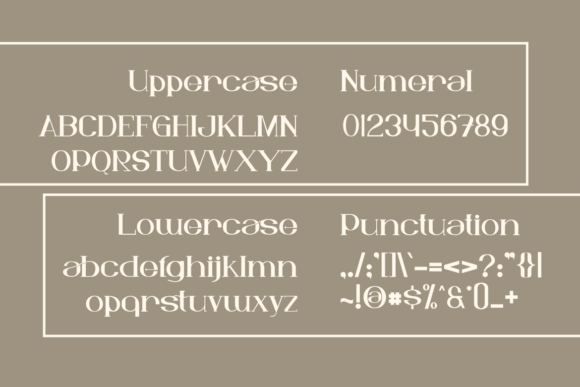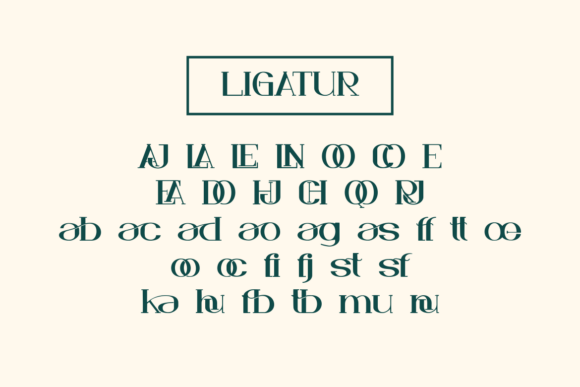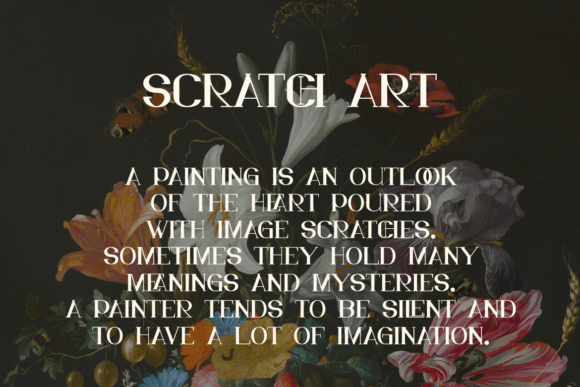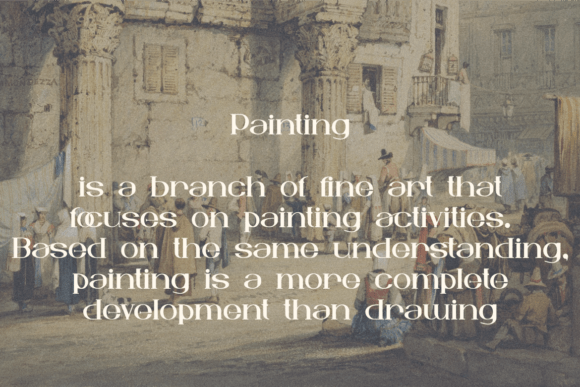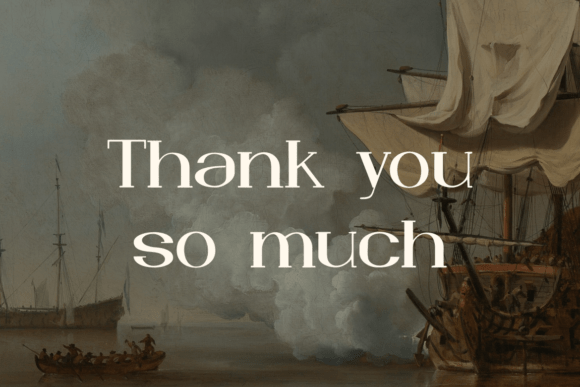
Gifbesty Font: Elevate Your Designs with Luxury and Sophistication
In the world of typography, fonts play a crucial role in conveying the tone and personality of a brand or design. For those seeking to create a bold yet refined aesthetic, Gifbesty Font is an excellent choice. This high-end luxury serif font boasts elegant letterforms and stylish curves that exude sophistication, making it ideal for fashion branding, editorial design, product packaging, and upscale invitations.
The Essence of Gifbesty Font
Gifbesty Font is designed to make a statement. Its sleek and modern serif lines evoke a sense of luxury, perfect for designers and crafters who want to elevate their projects. The font’s elegant curves and refined lines create a sense of balance and harmony, making it suitable for a wide range of applications, from high-end fashion brands to editorial designs and product packaging.
Key Features of Gifbesty Font
- Luxury Serif Design: Gifbesty Font features a high-end serif design that adds a touch of sophistication to any project.
- Elegant Letterforms: The font’s elegant letterforms are designed to create a sense of refinement and poise.
- Stylish Curves: The stylish curves of Gifbesty Font add a touch of modernity and flair to any design.
- Versatile: This font is perfect for a wide range of applications, including fashion branding, editorial design, product packaging, and upscale invitations.
Gifbesty Font is an excellent choice for designers and crafters who want to create a bold yet refined aesthetic. Whether you’re working on a fashion brand, editorial design, or product packaging, this font is sure to elevate your project. Its modern twist and luxurious feel make it perfect for those who want to create a lasting impression.
Benefits of Using Gifbesty Font
- Instant Luxury: Gifbesty Font adds a touch of luxury to any project, making it perfect for high-end brands and designs.
- Versatility: This font can be used for a wide range of applications, from fashion branding to editorial design and product packaging.
- High-Quality: This font is designed to deliver high-quality results, ensuring that your project looks professional and polished.
In conclusion, Gifbesty Font is an excellent choice for designers and crafters who want to create a bold yet refined aesthetic. Its luxury serif design, elegant letterforms, and stylish curves make it perfect for fashion branding, editorial design, product packaging, and upscale invitations. With its versatility, ease of use, and high-quality results, Gifbesty Font is sure to elevate your designs and help you create a lasting impression.